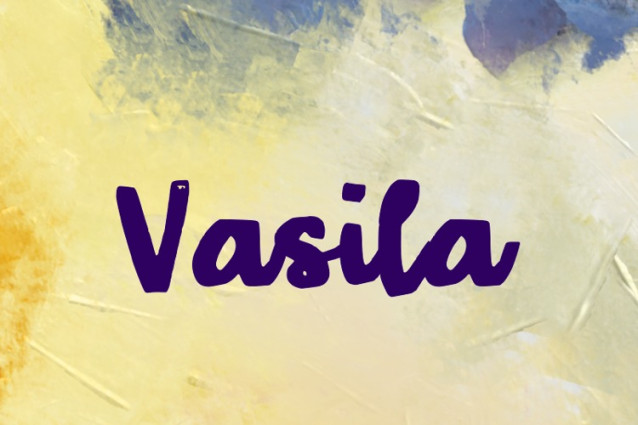
Vasila Script Font
Vasila Script Font, perfectly fit for branding, logo, wedding things, greeting cards, fashion, lookbook, marketing promotion, anytime you want to look fancy elegant but still casual.